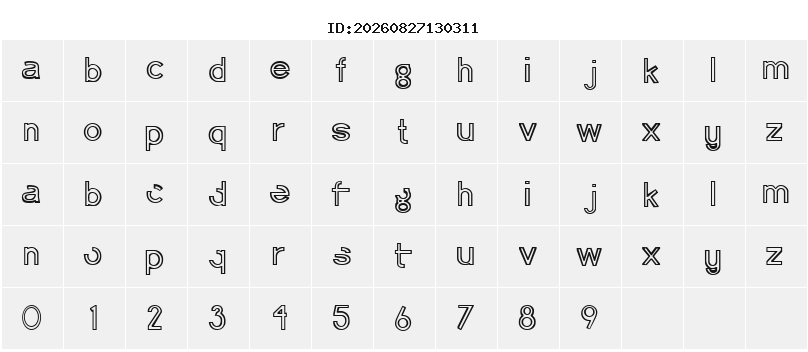
189-CAI978 Preview
About 189-CAI978.ttf
189-CAI978.ttf is a modern, elegant sans-serif font designed for ultimate readability and visual harmony. Perfect for branding, headlines, web design, and print materials.